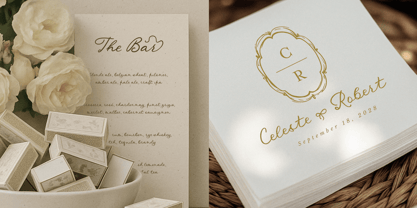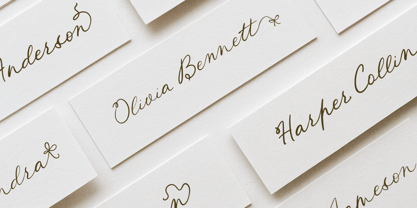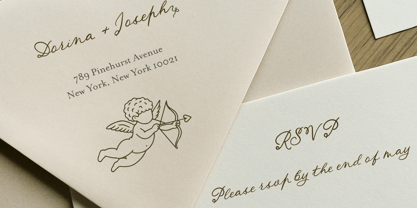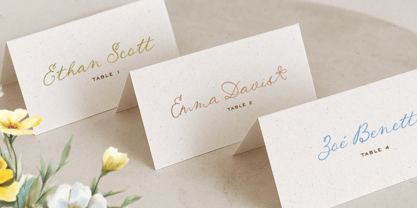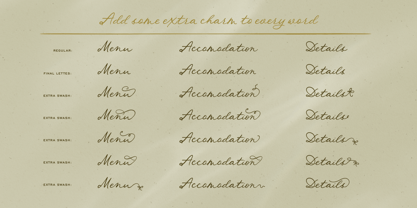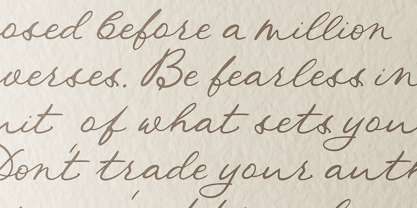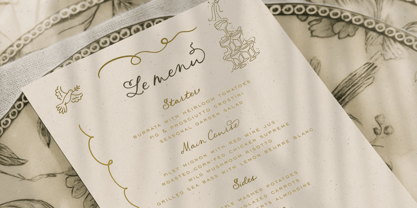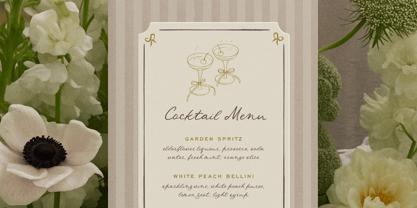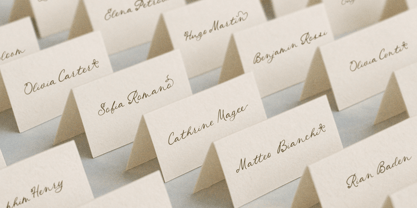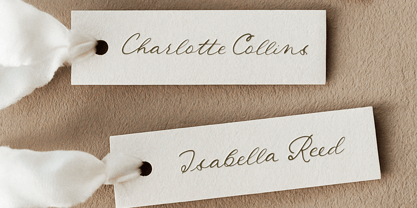
Fairy Bloom
by BlessedPrint
The Fairy Bloom Font Family was designed by Dmitrii Mikitenko and published by BlessedPrint. Fairy Bloom contains 4 styles and family package options. More about this family
Fairy Bloom is a romantic handwritten script with a whimsical, airy flow and modern calligraphy charm. Designed to bring a lighthearted yet refined feel to your designs, this font is full of personality and versatility. With two sets of uppercase letters, alternate lowercase endings, elegant swashes, and charming ligatures, Fairy Bloom will transform your wedding invitations, signage, and creative projects into something truly magical.
How it works:
• Alternate uppercase letters are easy to use — just type A1, B1, etc.
• When contextual alternates are turned on, the last lowercase letters in each word are automatically styled to give your text a natural, handwritten look.
• Final swashes are triggered with brackets: ]1, ]2, ]3, etc., for decorative lowercase endings.
• Ligatures and contextual alternates give your text a natural handwritten rhythm.
• Fairy Bloom includes Roman numerals. Just type I=, I=I, I=II, IV or I=III, etc.
Who is this font for:
• DIY wedding invitation designers
• Elegant signage and table decor
• Branding and logo projects
• Social media quotes and overlays
• Calligraphy lovers and lettering artists
• Personalized gifts and stationery makers
Designers: Dmitrii Mikitenko
Foundry: BlessedPrint